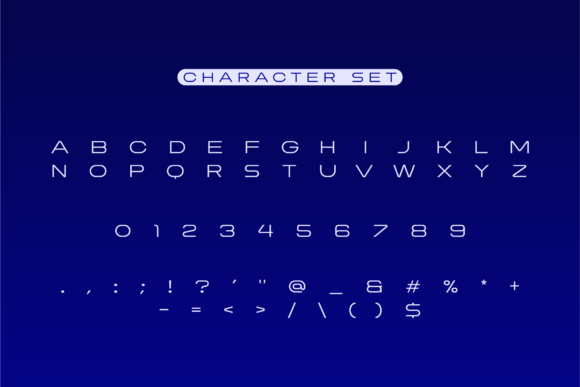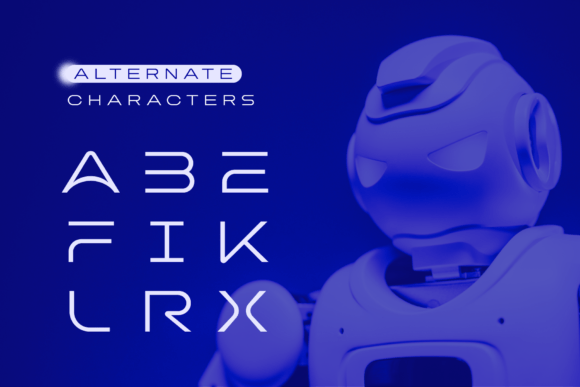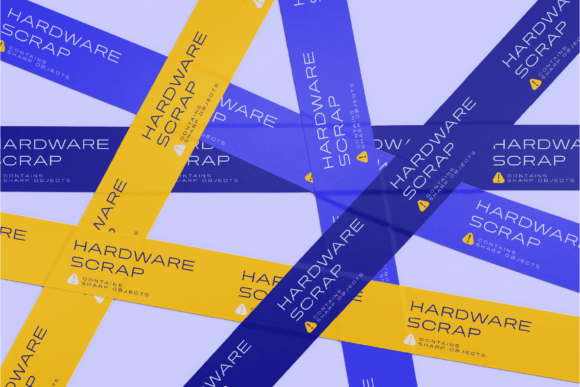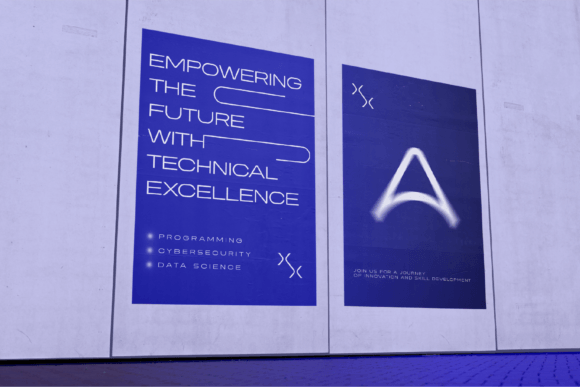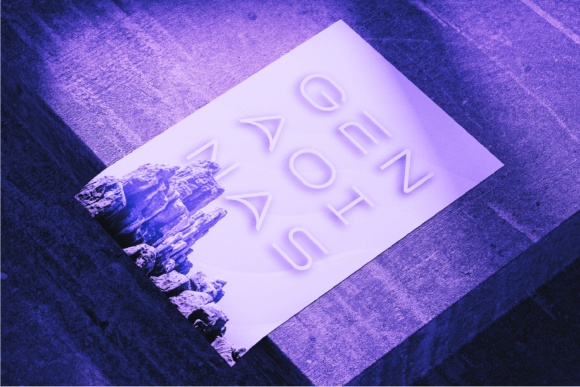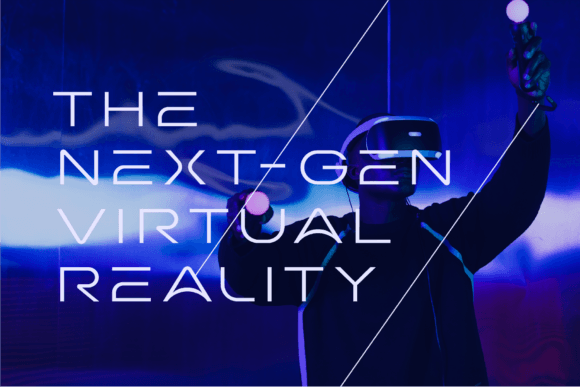
Unlocking the Secrets of the Future with Acor Font
Have you ever sat at your desk, staring at a blank page, trying to bring your imagination to life? You know the moment when the words start flowing, and your story begins to take shape. For designers and creatives, this is the spark that sets the entire process ablaze. It’s the thrill of bringing a new world to life, and Acor Font is here to help you achieve just that.
| 👤 Author | ebaddesigns |
Acor Font is a carefully crafted typeface that embodies the essence of modernity and innovation. This sleek and streamlined font is designed to take your creative projects to the next level, with a cutting-edge style that’s sure to impress. Whether you’re working on a futuristic narrative or a sci-fi project, Acor Font is the perfect tool to help you bring your vision to life.
Acor Font Key Features
- Font Family: Acor Font is a sans-serif font family with a modern and minimalist design.
- Character Set: Supports a wide range of languages, including Latin, Cyrillic, and Greek alphabets, making it a versatile font for global designs.
- Unique Characteristics: Acor Font features a unique blend of geometric and organic shapes, resulting in a clean and modern aesthetic that is perfect for contemporary designs.
Acor Font Review
First off, I have to say that I’m really impressed with Acor Font’s ✨ clean and modern aesthetic. The font’s sleek lines and minimalist approach make it perfect for a wide range of design projects, from digital interfaces to print materials. The font’s ✨ strong vertical strokes give it a sense of sophistication and elegance, while its ✨ open counters make it highly legible.
One of the things that really stands out about Acor Font is its versatility. It’s available in a range of weights, from Light to Extra Bold, making it easy to use in a variety of contexts. Additionally, the font’s ✨ high x-height makes it easy to read in small sizes, making it a great choice for digital interfaces.
- ⚠️ Limited language support: Acor Font is primarily designed for Latin-based languages, which may limit its use in non-Latin languages.
- ⚠️ Limited script support: Acor Font does not include script-based characters, which may limit its use in languages that rely heavily on script.
Overall, I’m really impressed with Acor Font’s clean design and versatility. While it may have some limitations, it’s a great choice for designers looking for a modern and legible font.
- Use the Acor font in combination with other sans-serif fonts for a clean and modern look.
- Use the Acor font for body text and reserve more decorative fonts for headings.
The Acor font is commonly used in:
- Business presentations and reports.
- Marketing materials and social media posts.
- Web design
Compared to Acor Font, Inter Font has a more geometric and minimalist design. While Acor Font has a slightly more rounded and friendly feel, Inter Font is more precise and modern.